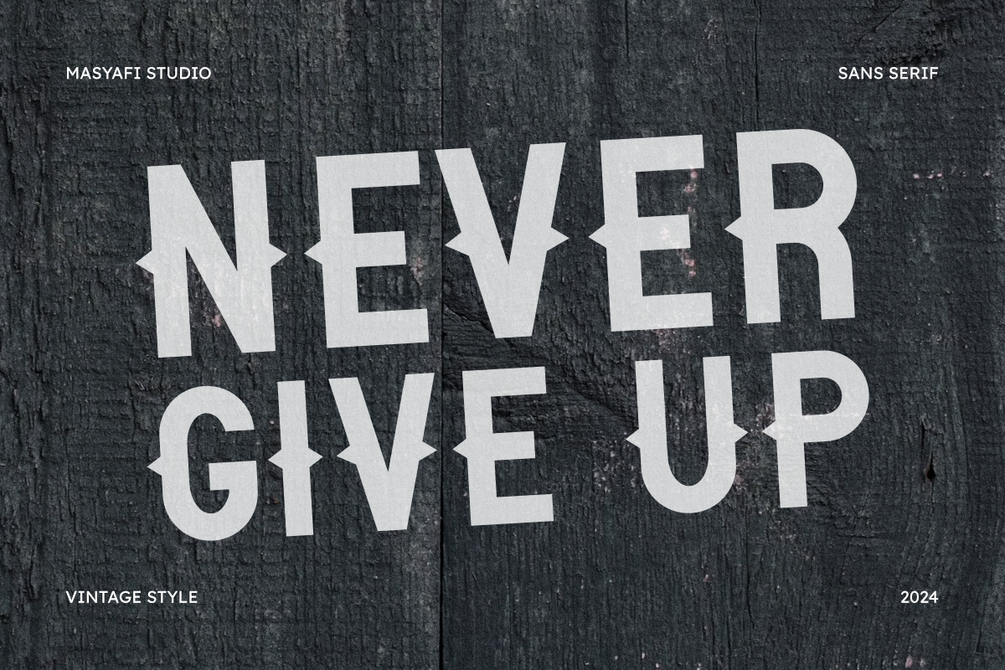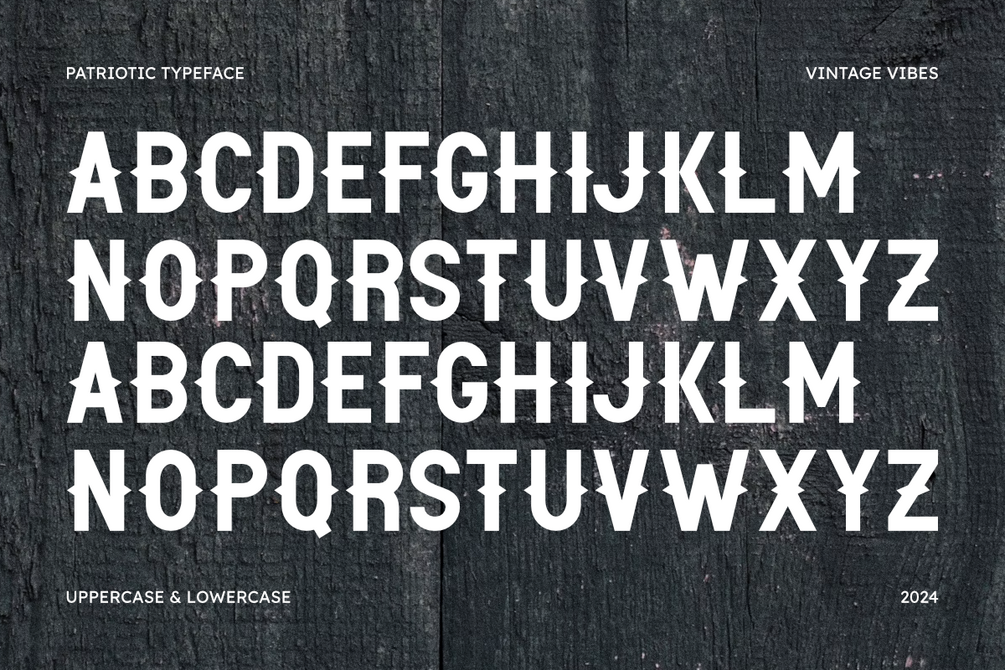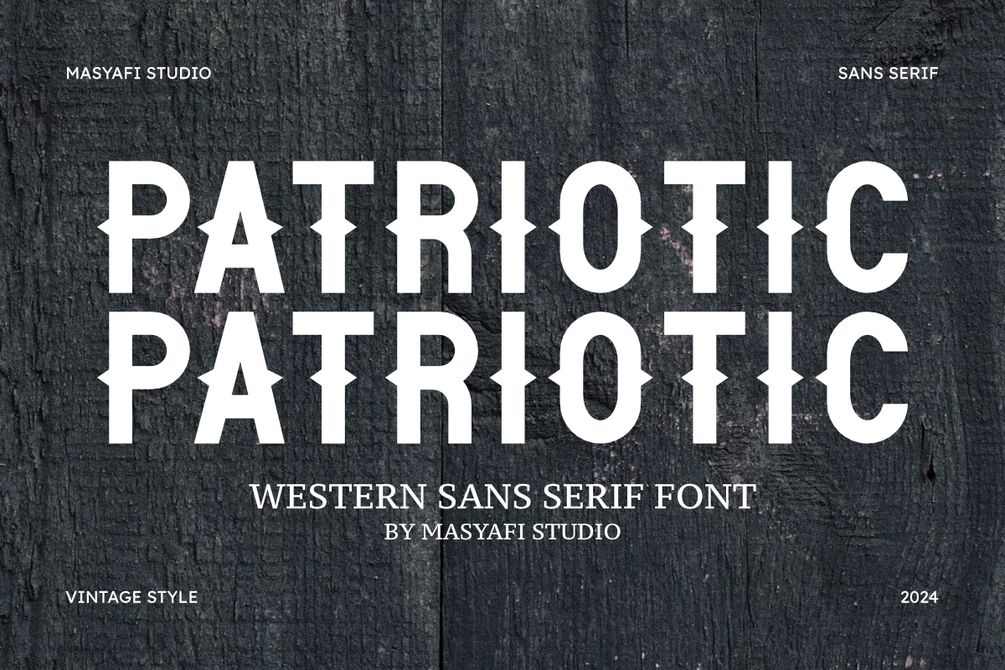
Patrioric - Western Sans Serif Font
Patriotic is a cool vintage sans-serif font. This font is inspired by vintage Western-style typography. This font is very suitable for your various creative needs that have a vintage feel. This font is suitable for posters, t-shirts, apparel, book covers, cards, stickers, crafts, silhouettes, cutting, logos, magazines, and others.